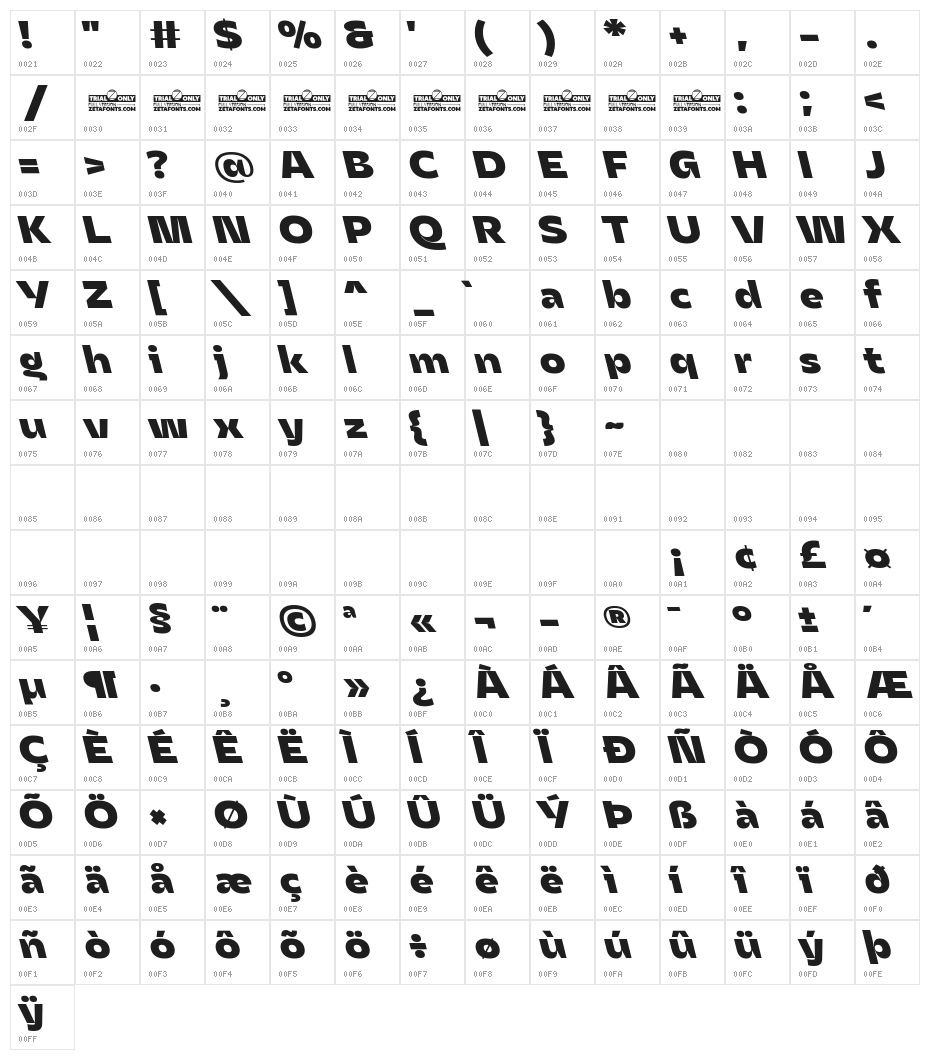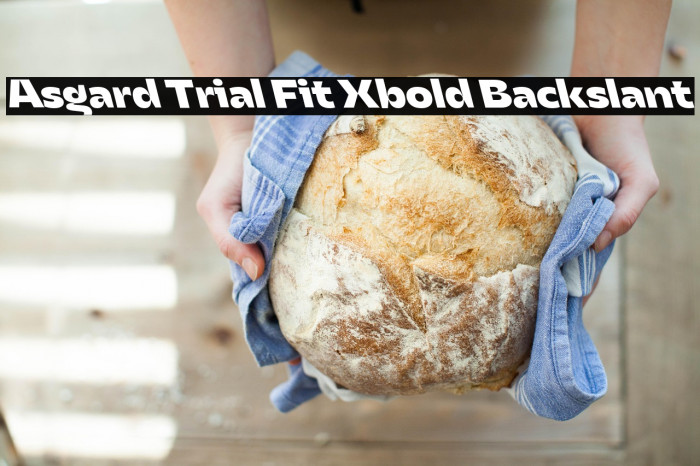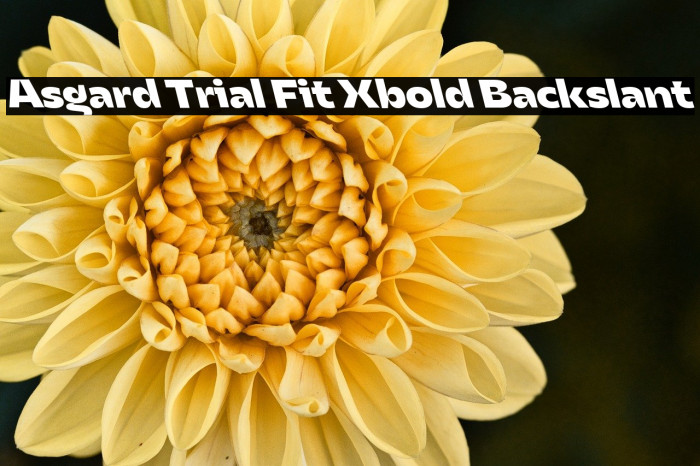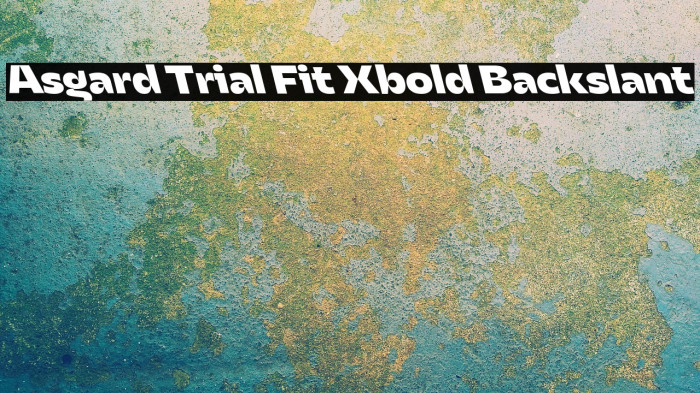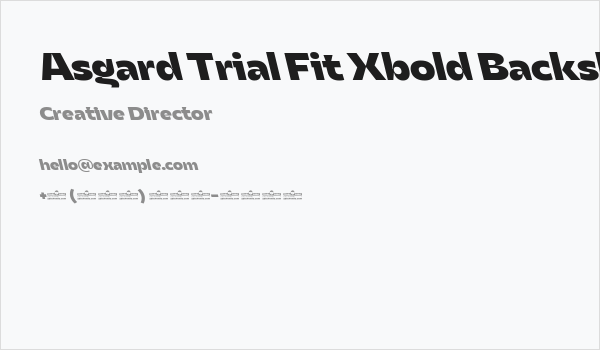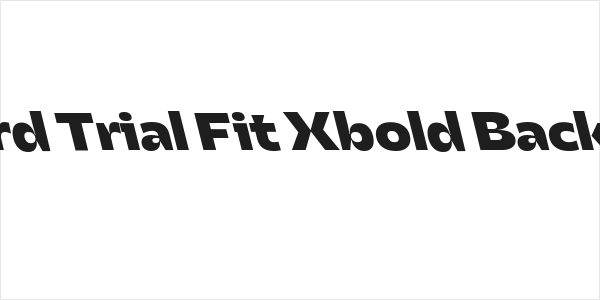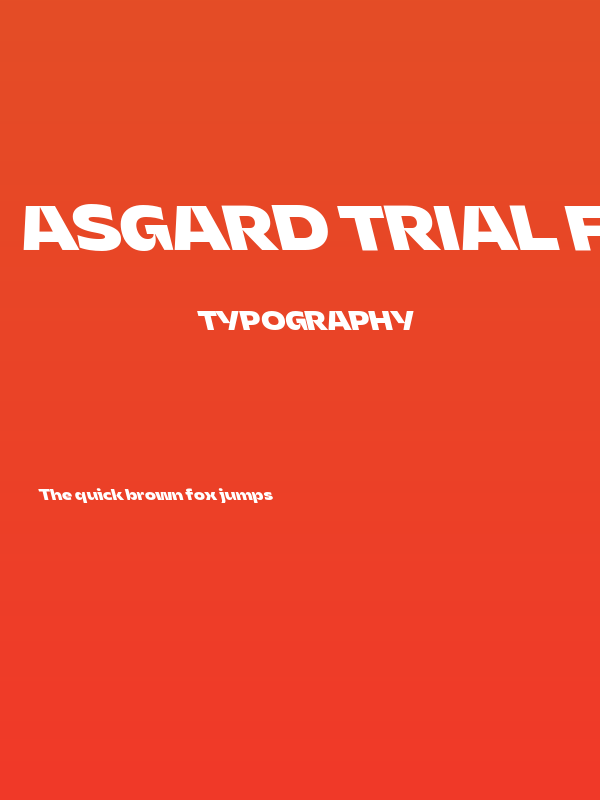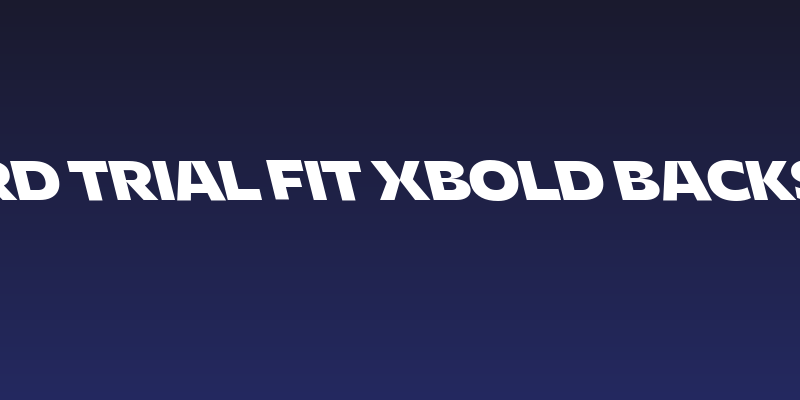
Asgard Trial Fit Xbold Backslant Font
Asgard Trial Fit Xbold Backslant Description
This font exhibits a bold and dynamic style with a distinct backslant, giving it a sense of movement and energy. The uppercase and lowercase letters are robust and wide, with a strong presence that commands attention. The characters are tightly spaced, enhancing the boldness of the font. The numerals and special characters maintain the same energetic style, ensuring consistency across all glyphs. The font's thick strokes and minimal contrast between thick and thin lines contribute to its powerful appearance, making it ideal for impactful designs.
| Proposed Projects | Ideal for headlines, posters, branding, and any design requiring a strong visual impact. |